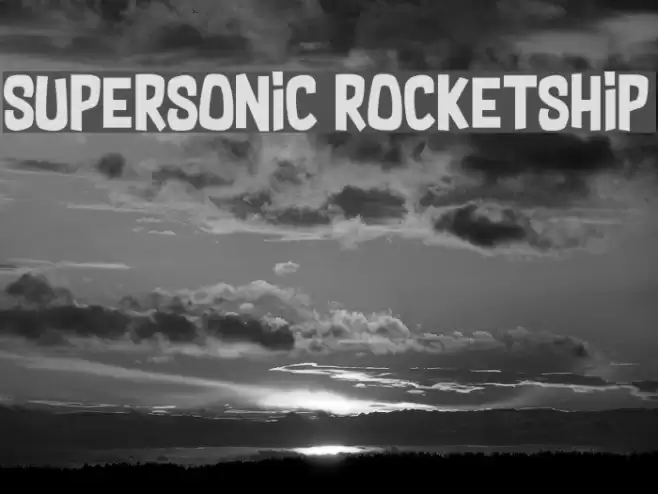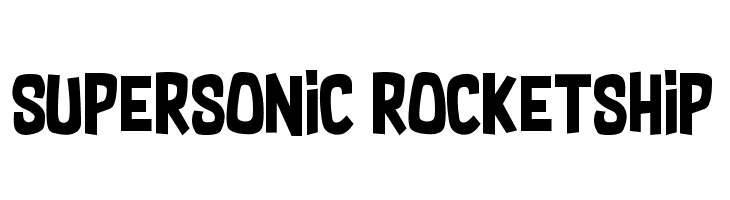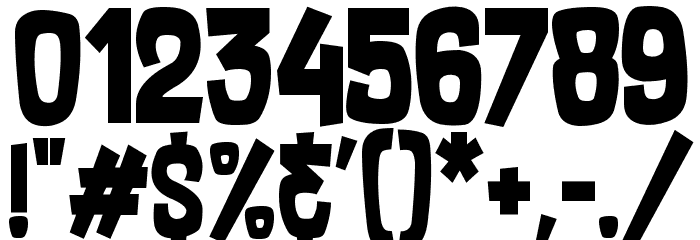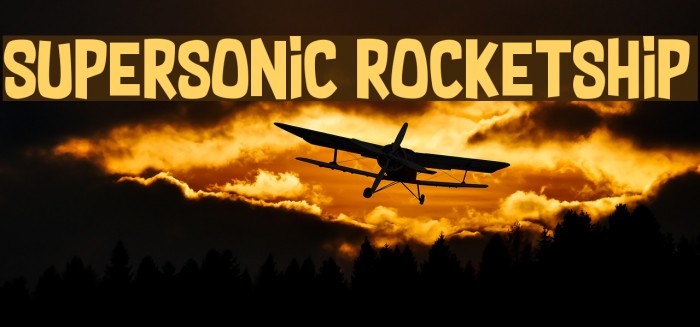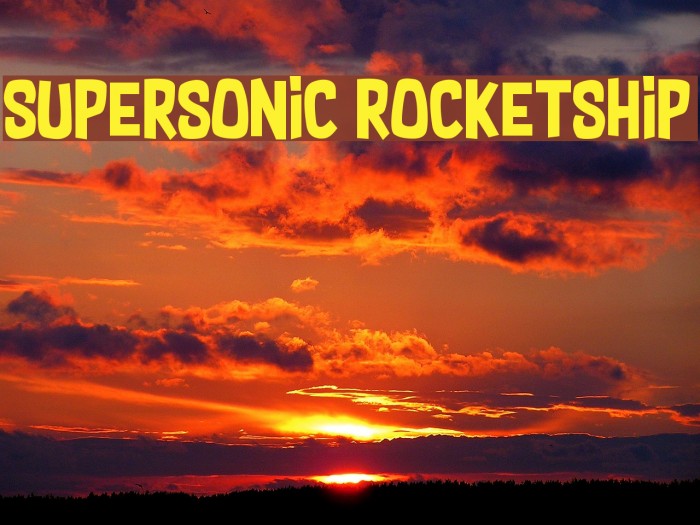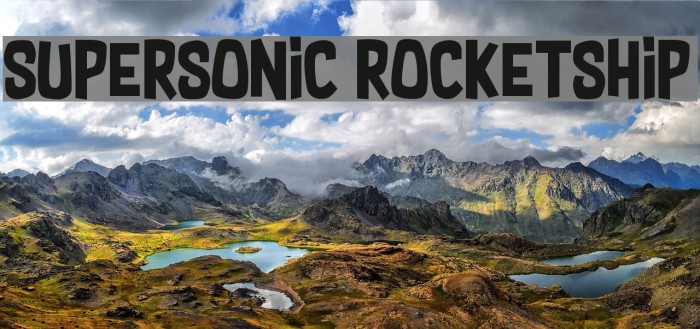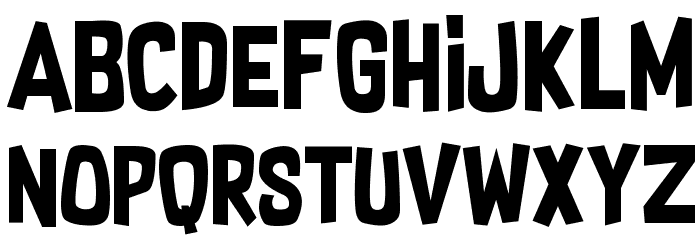
Supersonic Rocketship Font
Supersonic Rocketship Description
This font features bold, uppercase letters with a playful and dynamic style. The characters are wide and have a slightly condensed appearance, giving them a strong presence. The strokes are thick and uniform, providing a sense of stability and boldness. The font includes a full set of uppercase letters, numbers, and a variety of special characters, making it versatile for different uses. Its bold and impactful design makes it suitable for attention-grabbing headlines and display purposes. The overall style is modern and energetic, perfect for projects that require a strong visual impact.
A bold, dynamic font with wide, condensed characters and a modern style from Uncategorized fonts.
- Proposed Projects: Ideal for posters, headlines, branding, and any project needing a strong visual impact.